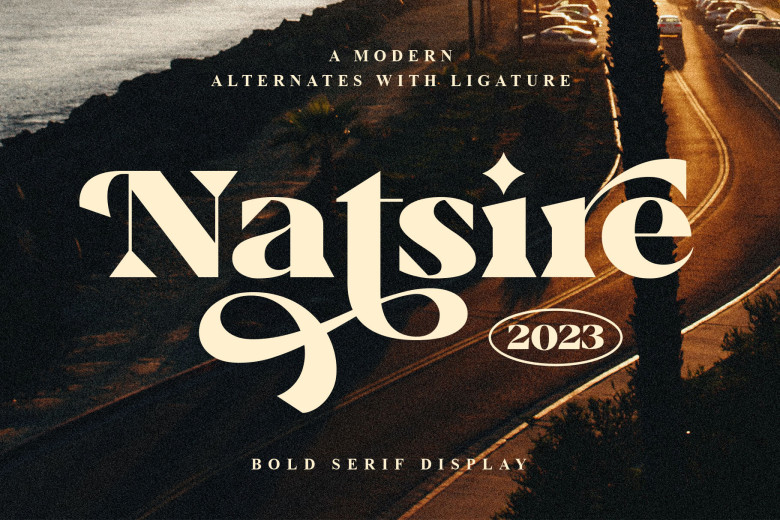
Natsire Font
Natsire is a sophisticated Modern serif font. A bold serif with sharp edges, Natsire draws its inspiration from contemporary design and classic typography to offer thousands of alternate characters and Ligatures that showcase luxuriousness, courage, glamour,
lifestyle characteristics and lifestyle choices – ideal for weddings, logotypes invitation cards magazines posters fashion social media etc! PUA coded so that all amazing ligatures glyphs can be easily accessed!
Natsire Serif Font